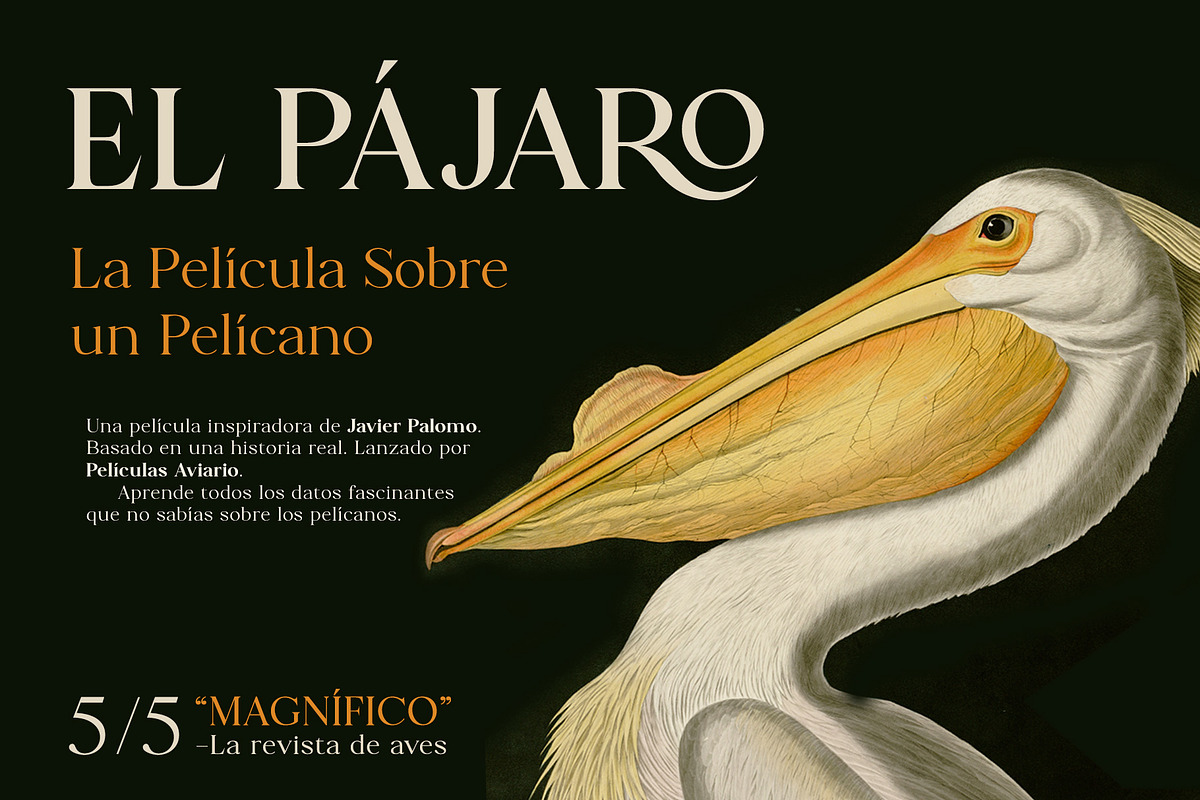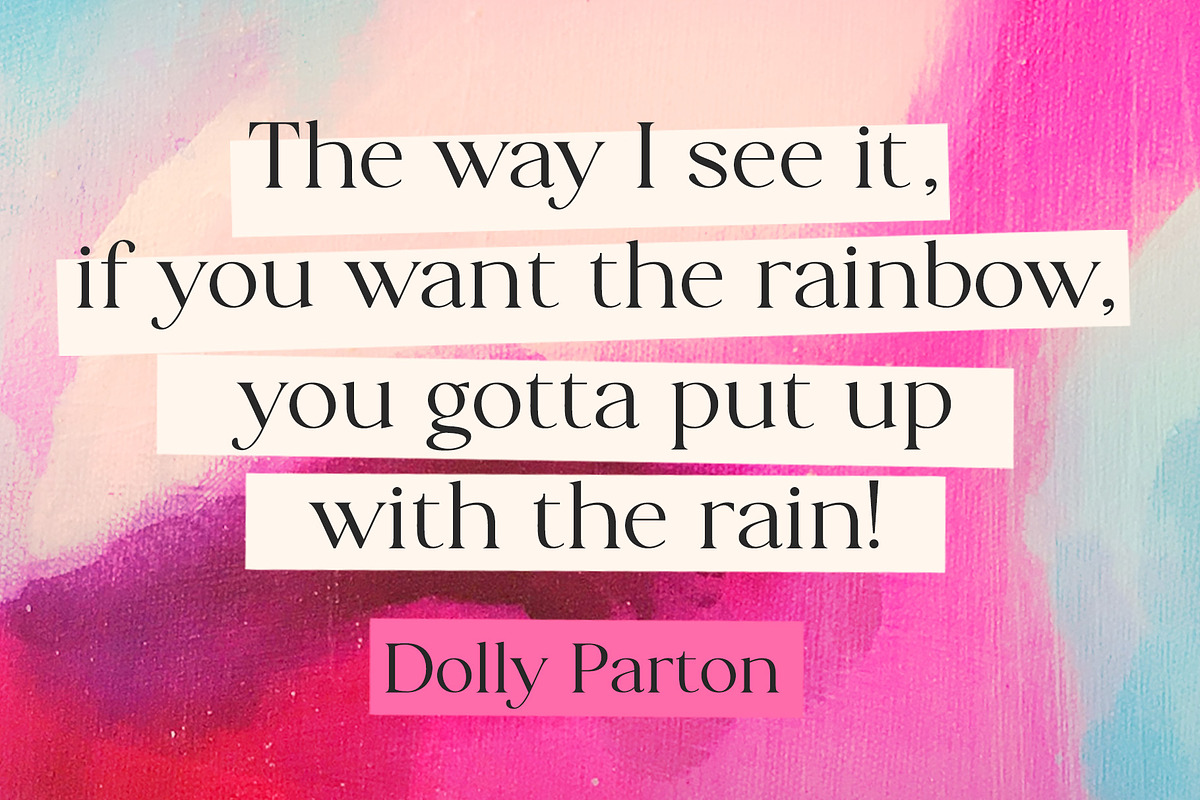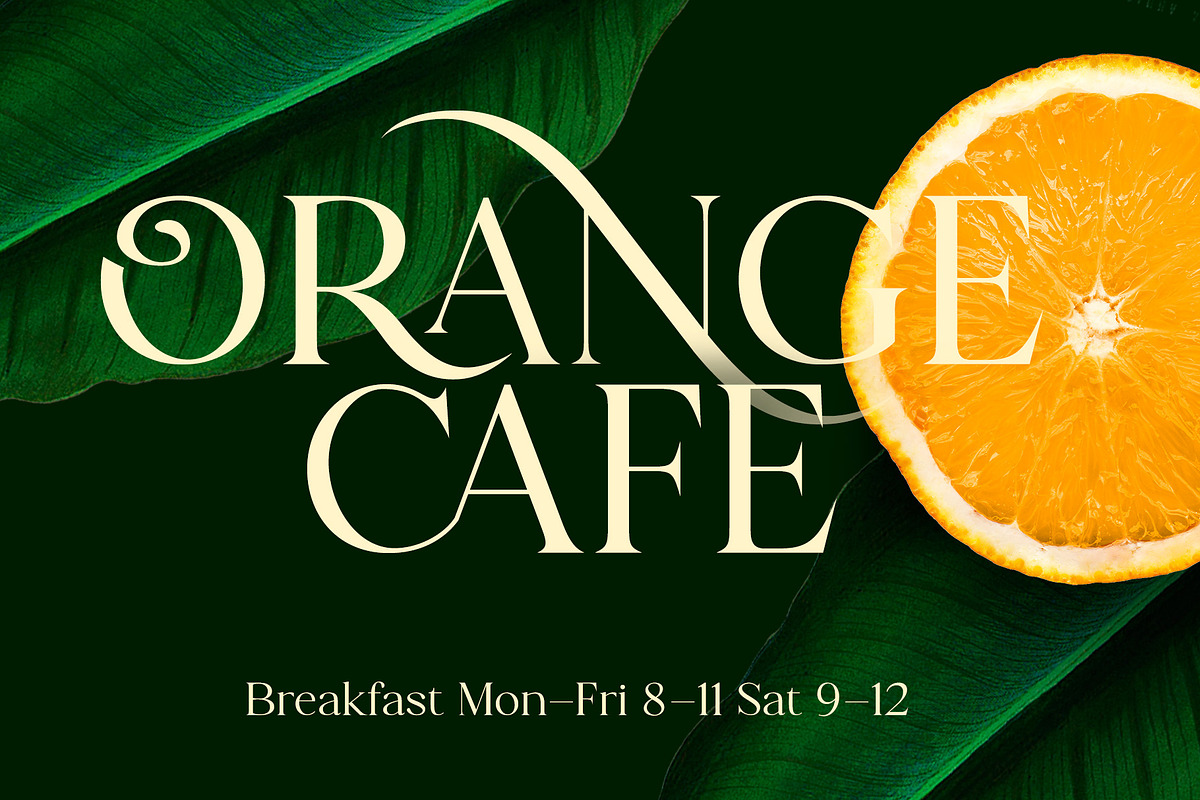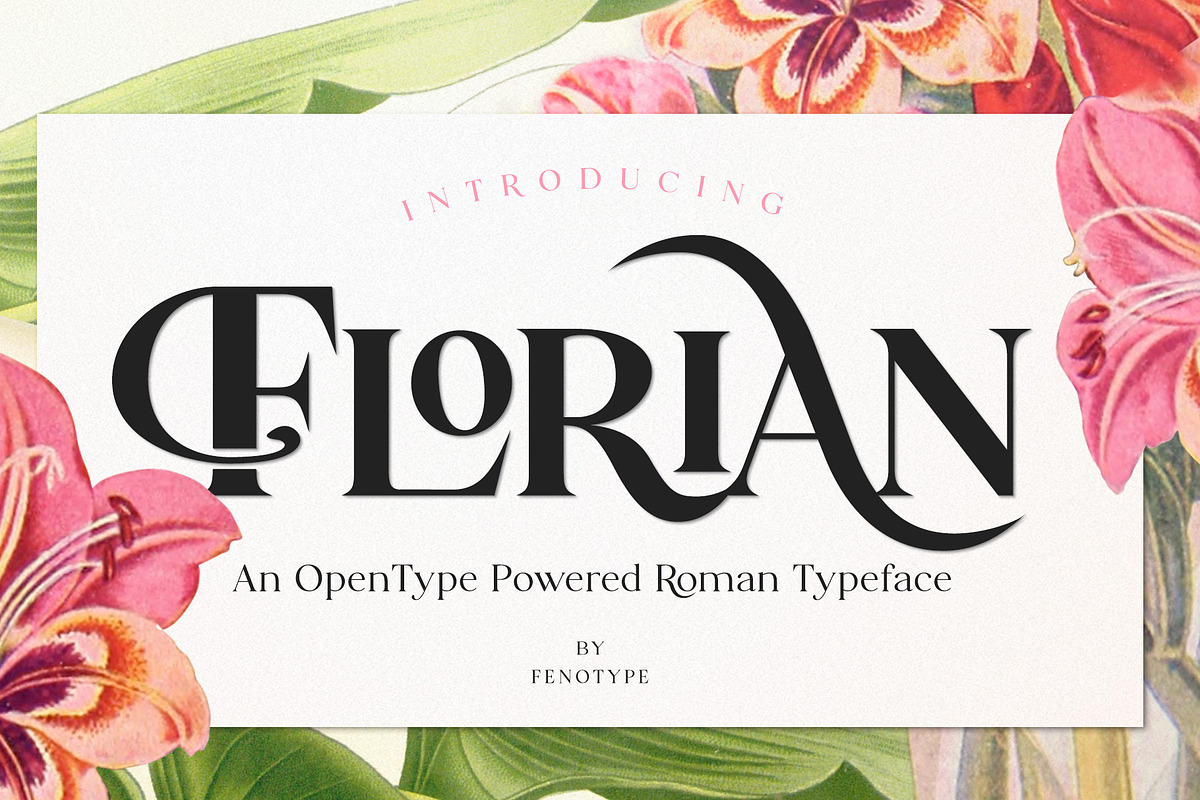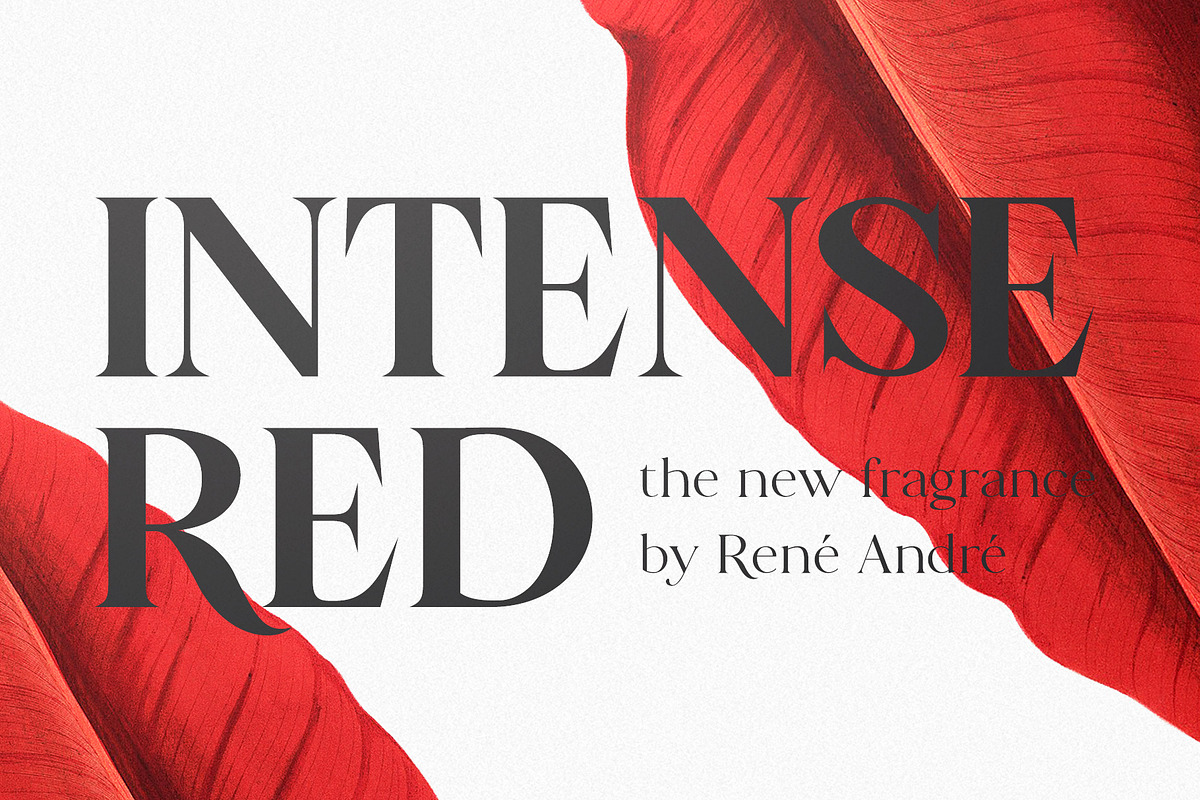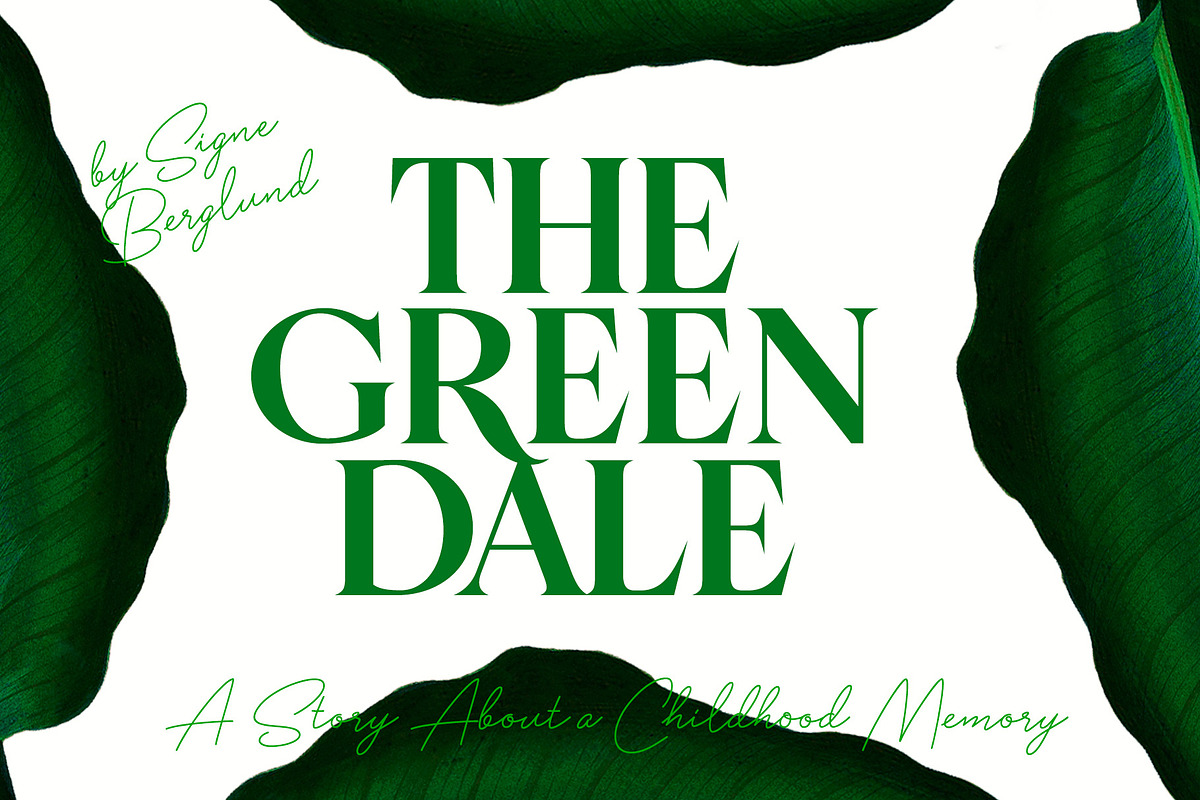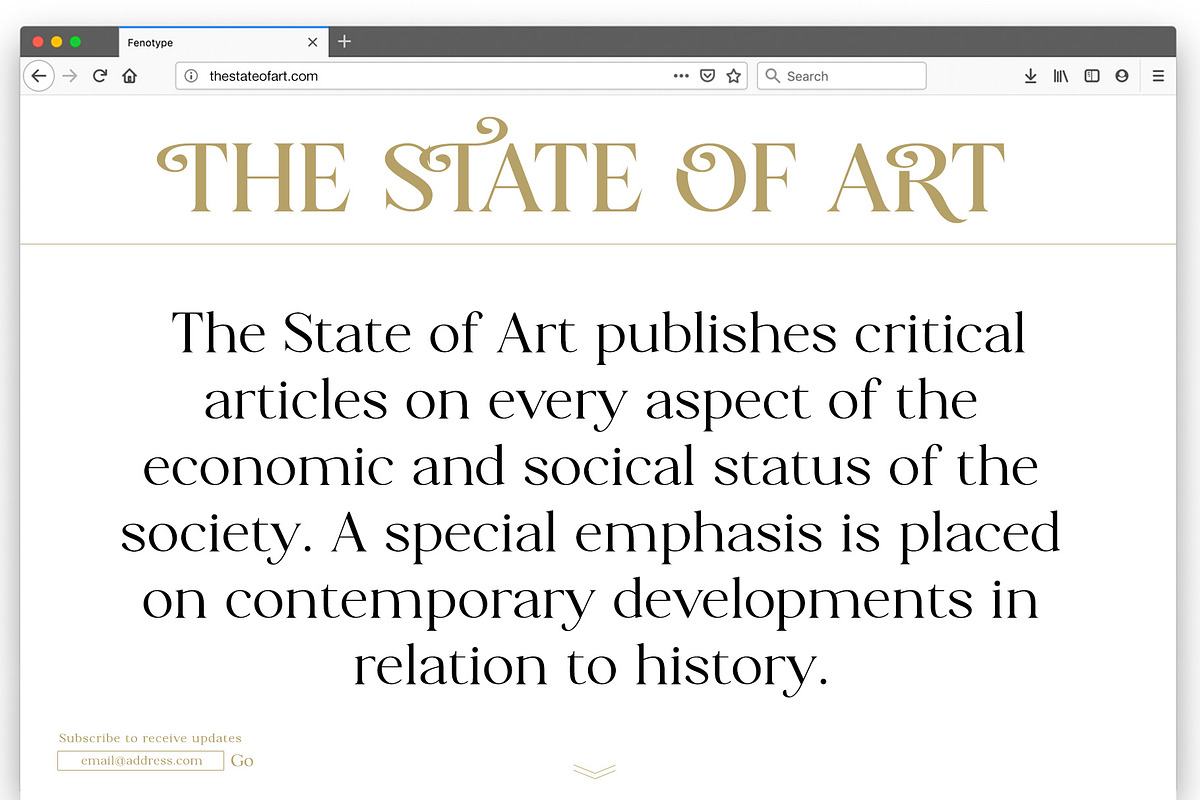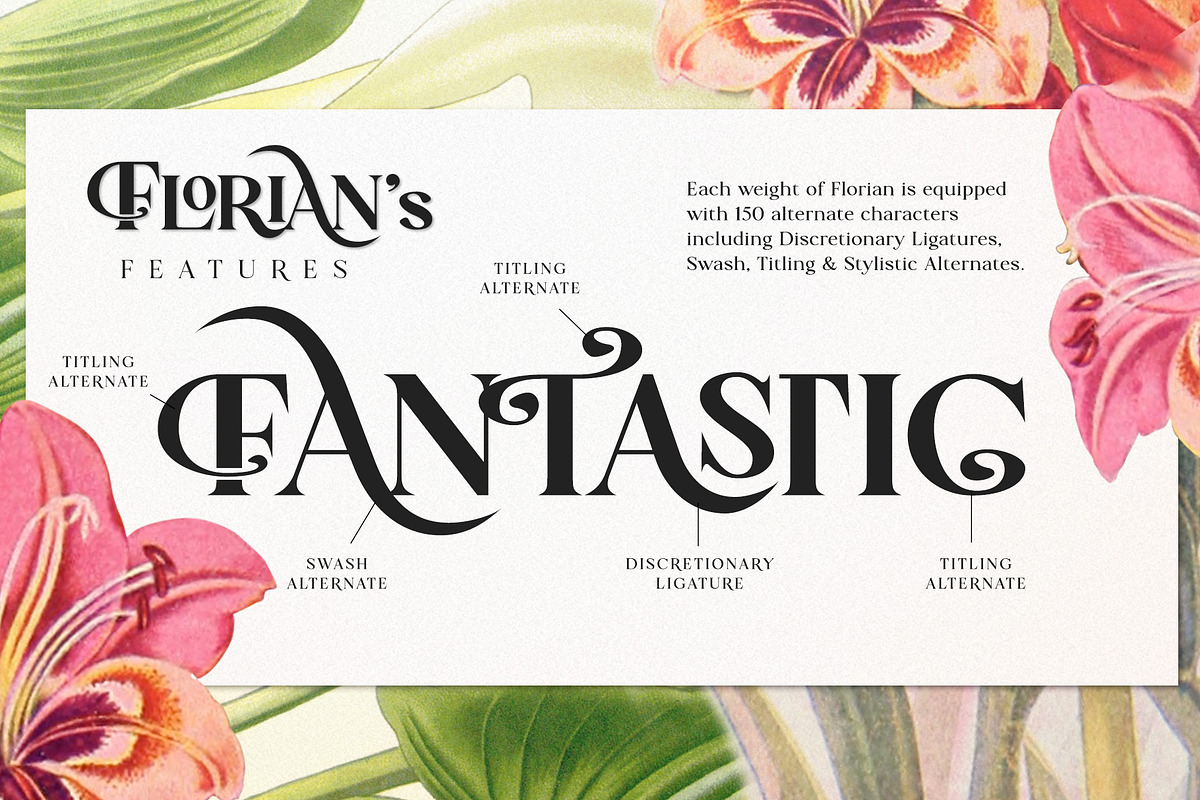
Florian -Swashy Serif Type
Florian is an elegant Roman Display typeface with three weights. It’s great for branding, packaging or as in headlines. Florian is a classic serif with contemporary features. Florian has a clear sense of fashion and style.
Florian is equipped with 150 OpenType alternates including Swash, Stylistic and Titling Alternates. Florian also has interlocking ligatures set in Discretionary Ligatures. These ligatures contain pairs in Uppercase + Uppercase and Uppercase + Lowercase. All Alternates are PUA encoded and can also be accessed from Glyph Palette or Character Map. Try combining Discretionary Ligatures with other Alternates in Caps to create striking word forms.